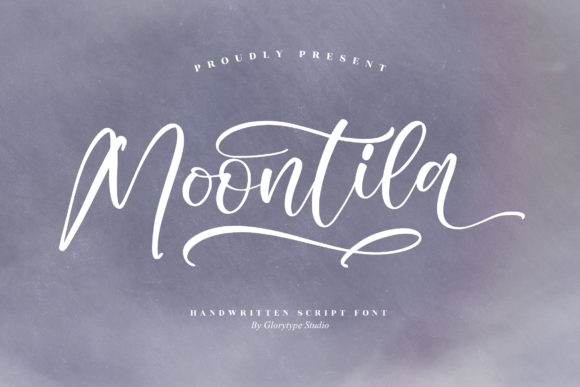
**Moontila: The Enchanting Script Font That Will Captivate Your Digital Presence**
Step into a realm of elegance and sophistication with Moontila, the exquisite script font that will transform your website titles into breathtaking works of art. Crafted with meticulous care by the renowned Glorytype Studio, Moontila embodies the essence of timeless charm and contemporary allure.
Unleash the power of Moontila to elevate your branding endeavors to new heights. Its graceful curves and flowing lines exude an air of sophistication, making it the perfect choice for logos, product packaging, and any project that demands an unforgettable visual impact.
Moontila's versatility knows no bounds. Whether you seek to create enchanting invitations, captivating posters, or eye-catching homeware designs, this remarkable font will effortlessly enhance the aesthetic appeal of your creations.
Embrace the magic of Moontila and witness your projects blossom into masterpieces. Its PUA encoding grants you effortless access to a treasure trove of glyphs and swashes, empowering you to add intricate details and a touch of whimsy to your designs.
With Moontila at your fingertips, your imagination will soar. Its ability to elevate any project to new levels of beauty will inspire a symphony of creative possibilities. Experience the transformative power of Moontila today and embark on a journey of enchantment and visual delight.